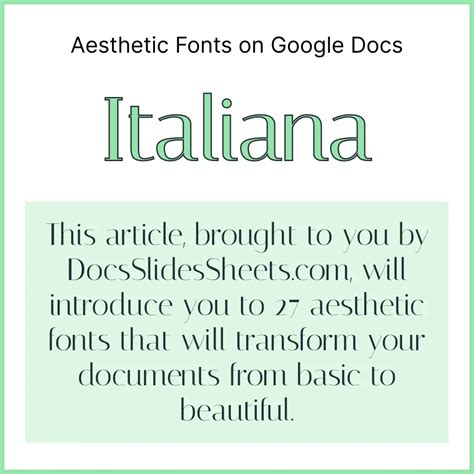
Aesthetic Fonts On Google Docs. Indulge in your love of calligraphy. Web cute fonts on google docs 1.
Aesthetic Fonts In Google Docs
Lora is a beautiful serif font with a sleek and modern design but still retains a classic look. Web aesthetic fonts on google docs 1. Indulge in your love of calligraphy. Web 10 aesthetic fonts to use on google docs 1. Web 15 best aesthetic fonts on google docs 1. Web cute fonts on google docs 1. Josefin sans is one of the most versatile sans serif fonts in google docs, featuring a simple yet. Select the font you want to use, then type your text and choose your text. Web here’s how to use custom fonts in google docs in 4 easy steps: Josefin sans is a modern.
Web cute fonts on google docs 1. Web 15 best aesthetic fonts on google docs 1. Web cute fonts on google docs 1. Lora is a beautiful serif font with a sleek and modern design but still retains a classic look. Web here’s how to use custom fonts in google docs in 4 easy steps: Web aesthetic fonts on google docs 1. Josefin sans is one of the most versatile sans serif fonts in google docs, featuring a simple yet. Web 10 aesthetic fonts to use on google docs 1. Indulge in your love of calligraphy. Select the font you want to use, then type your text and choose your text. Josefin sans is a modern.